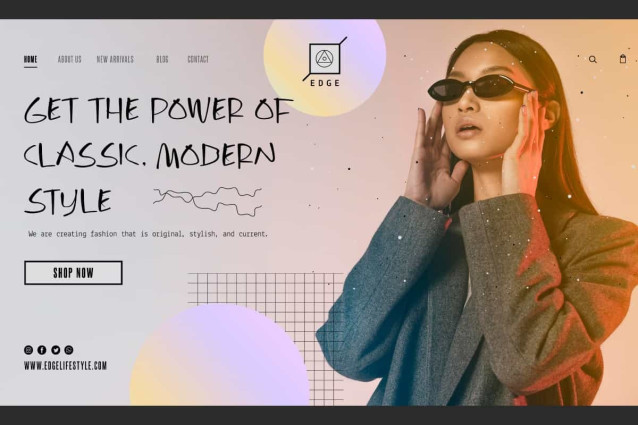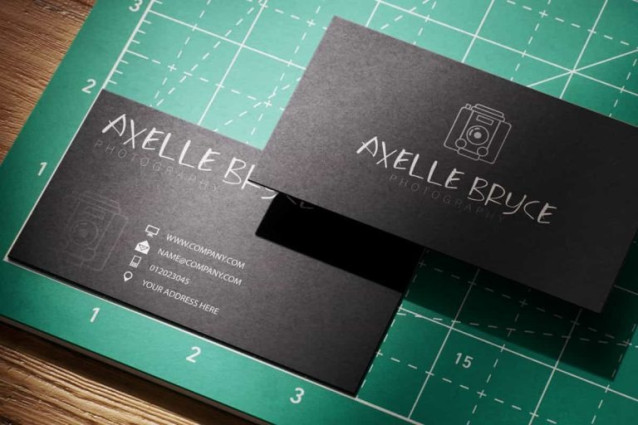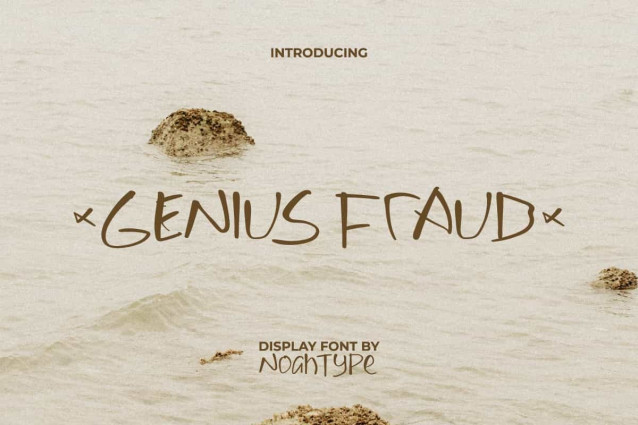
Genius Fraud Font is a display font that can give a mysterious impression by NoahType. This font is made to resemble irregular pen strokes, leaving a spooky feeling to design. It will be good for any designs, such as brand image, custom design, menu, poster, product packaging, quotes, invitation, label, marketing material, signage, web, and many more!
Genius Fraud Font includes a complete set of Uppercase and Lowercase Basic Characters, Numerals, Punctuation, and Symbol. The characters of this font will give amazing look and also a perfect choice for many industries, such as accessories, advertising, cafe, event or festival, fashion, game, printing, publishing, etc.